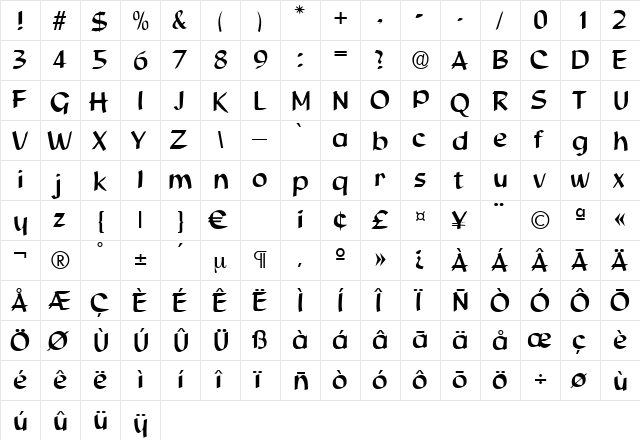
StudioBold Regular
Design Context for StudioBold Typeface
StudioBold is a composed and adaptable typeface that performs quietly and consistently across a wide range of design contexts. The heavy weight commands attention and anchors typographic hierarchies.